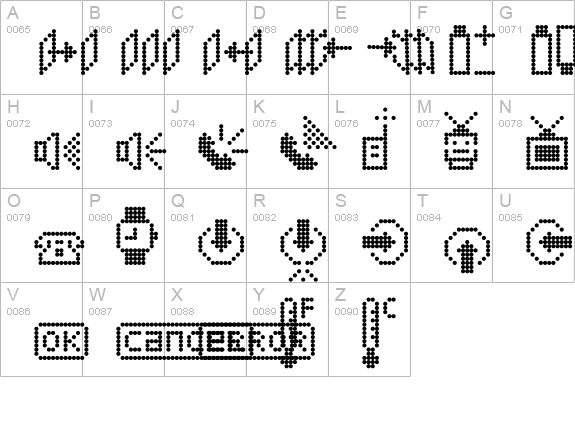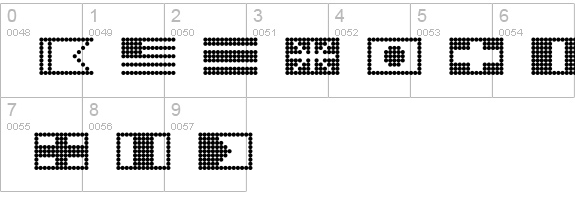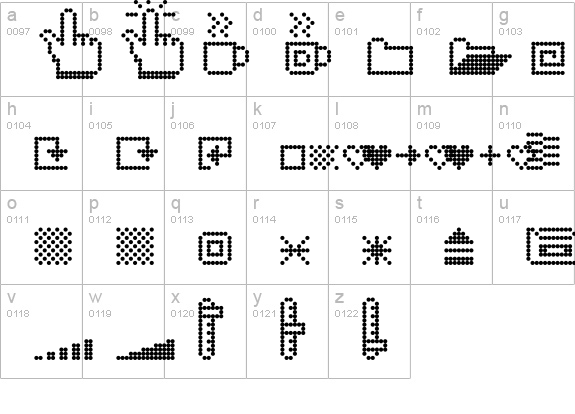
Dotto-Too is a modern and stylish font that combines elegance with a touch of playfulness. Its clean lines and rounded edges make it perfect for a wide range of design projects, from branding to packaging to social media graphics. The versatility of Dotto-Too allows it to be used in both professional and creative settings, making it a valuable addition to any designer's toolkit. This beautiful font is available for free download at FontsMarket.com, allowing designers to access its unique charm without any cost. Whether you're working on a personal project or a client's campaign, Dotto-Too is sure to add a touch of sophistication and creativity to your designs. Download this amazing font today and elevate your design game to the next level!